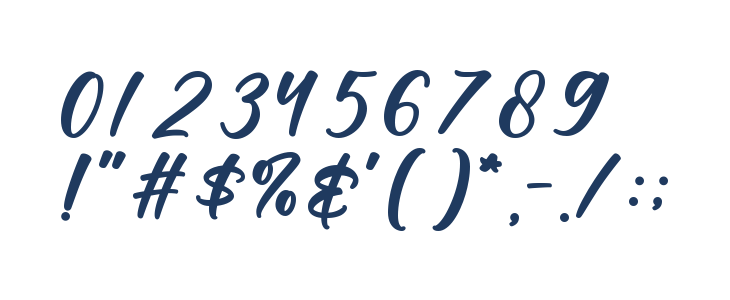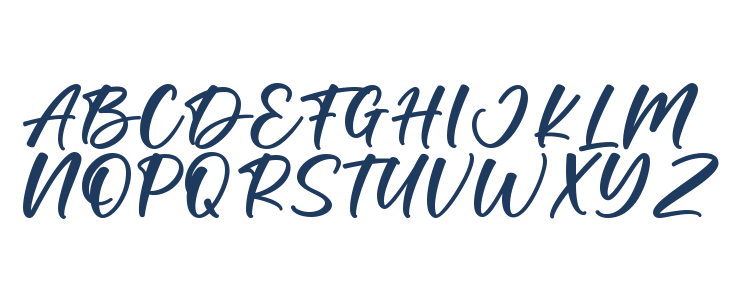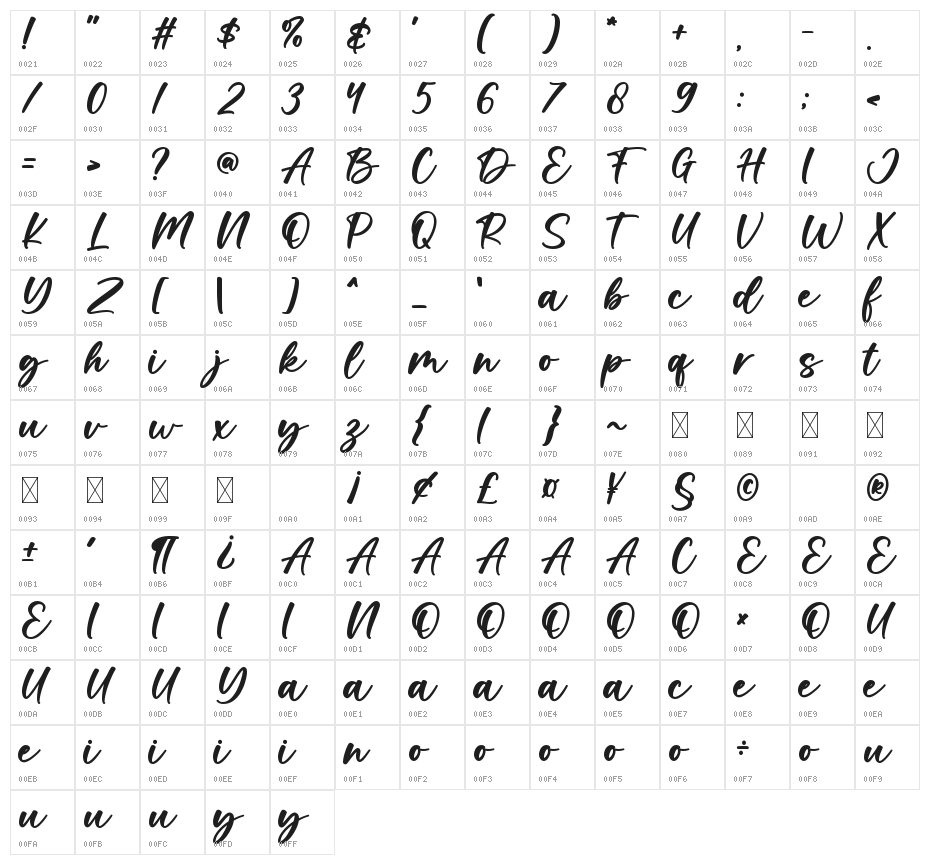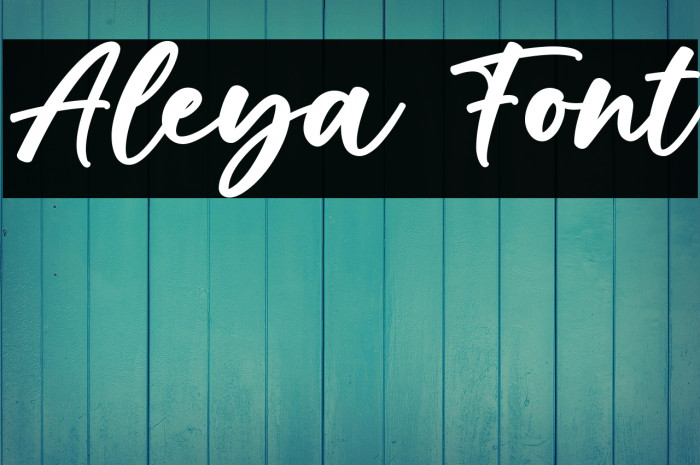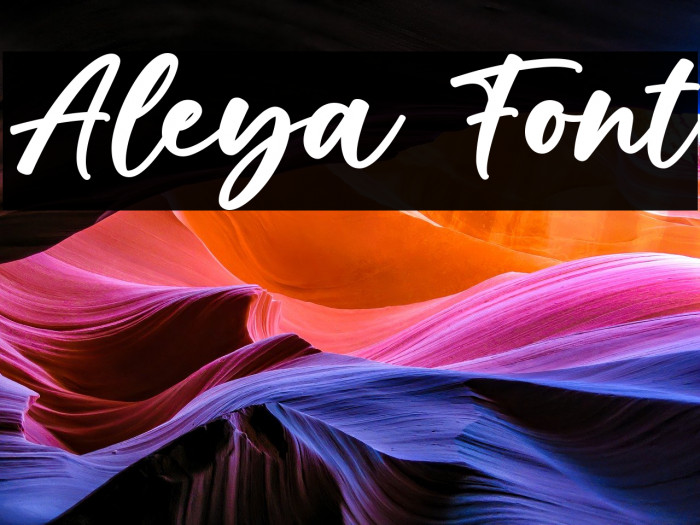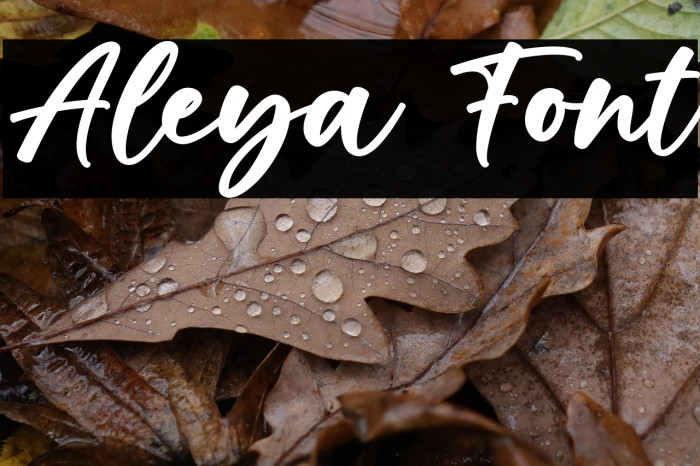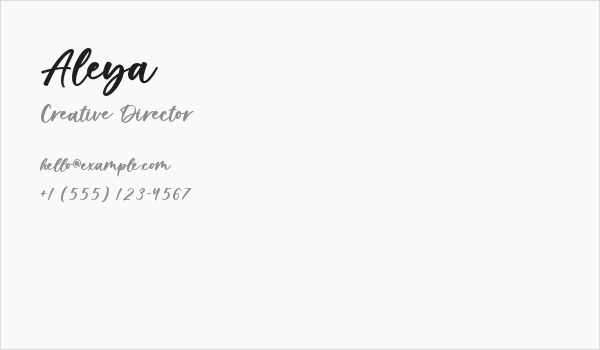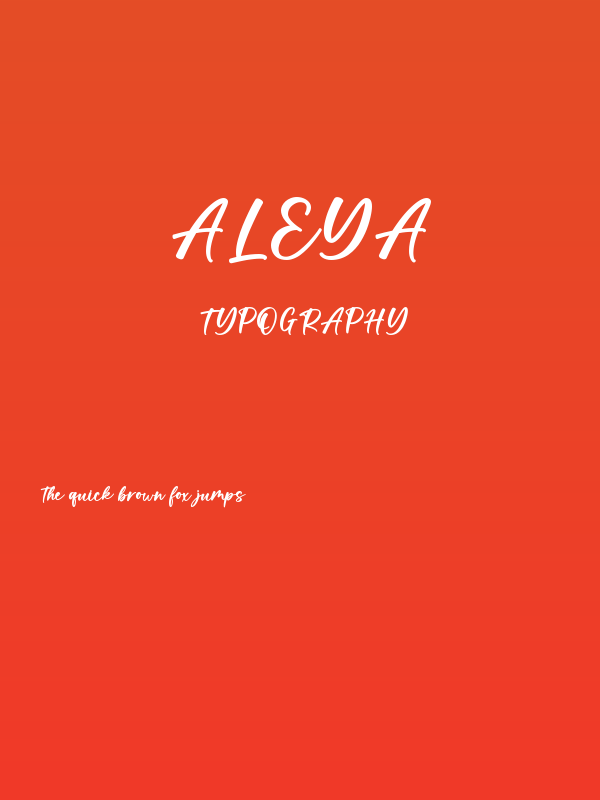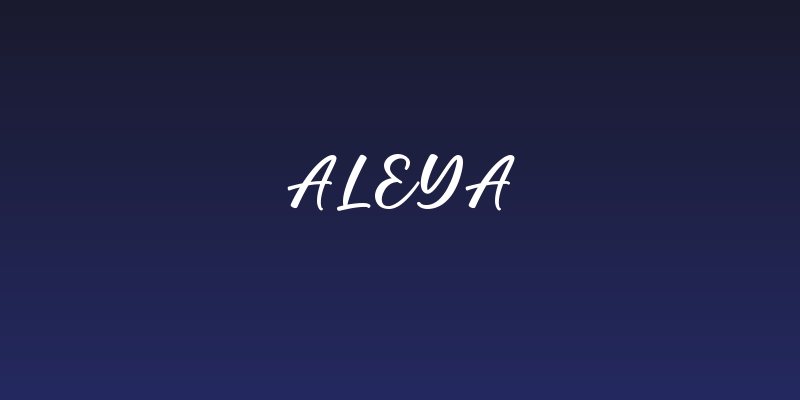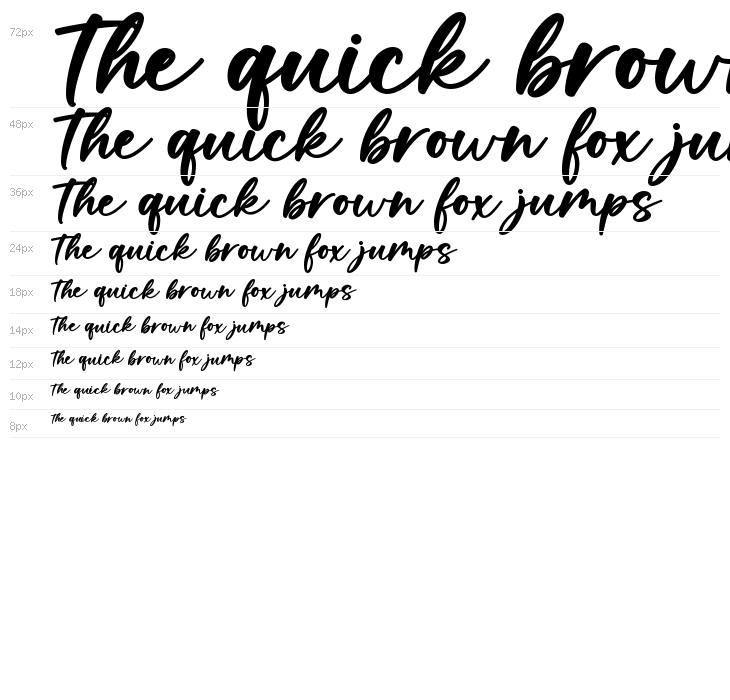
Aleya Font
Aleya Description
A bold, flowing script font with a handwritten, brush-pen appearance. The characters are connected in a cursive style, featuring rounded forms and dynamic strokes. The overall look is expressive and modern, with consistent thickness and smooth curves.
| Overall Style | Modern, Decorative, Handwritten |
| Use Case | Logos, Headlines, Invitations, Social media graphics |
| Proposed Projects | Greeting cards, invitations, branding, social media graphics, quotes, posters. |